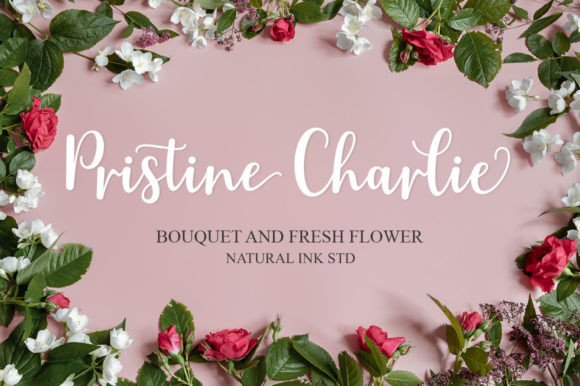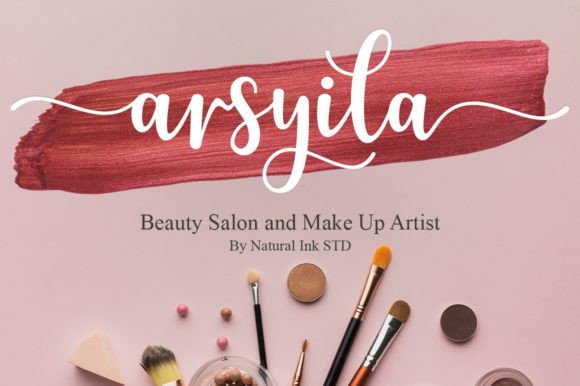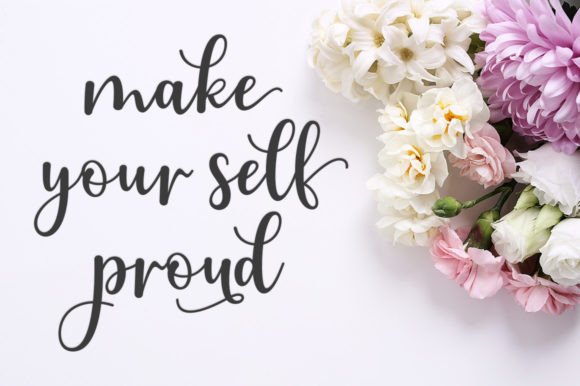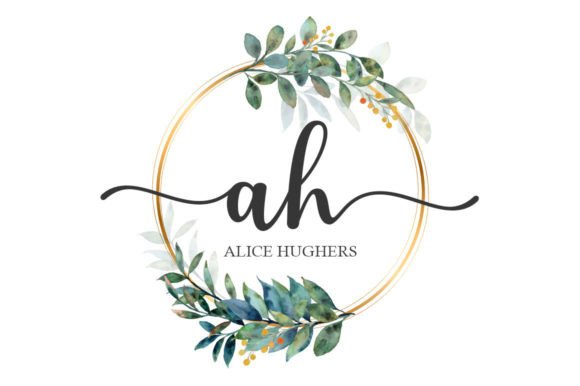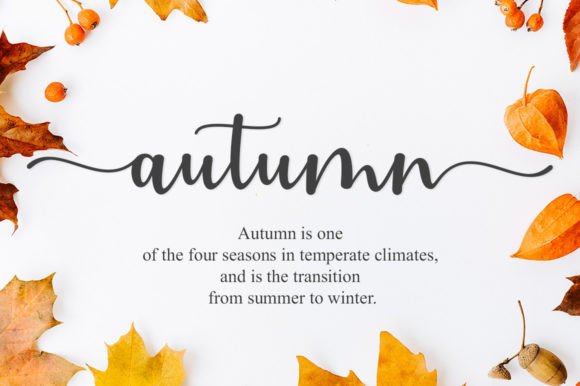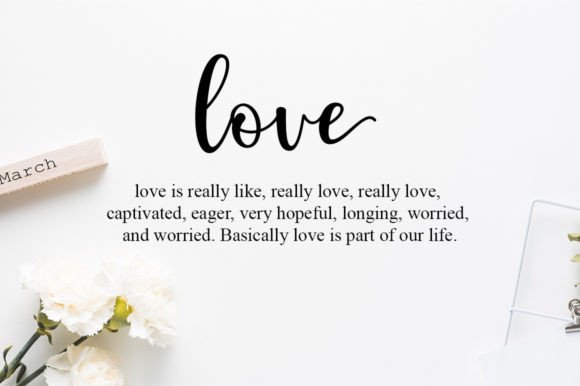
Introduction to Astylife Font
As a designer, there’s nothing quite like that moment of pure inspiration – when a new font suddenly transports your creative project to the next level. You’re brainstorming ideas, scrolling through design resources, and suddenly, you stumble upon the perfect font. It’s like finding a missing puzzle piece that brings everything together. For me, that moment happened when I discovered the Astylife Font – a romantic and sweet calligraphy typeface that adds a touch of luxury to any design.
With its charming characters that dance along the baseline, the Astylife Font is the perfect addition to any design project. Whether you’re working on a wedding invitation, a logo, or a marketing brochure, this high-quality font is sure to elevate your design to new heights. And the best part? It’s available for a free download, making it an accessible design resource for designers of all levels.
- Unique and modern font style, ideal for use in logos, branding, and other creative projects that require a distinctive look.
Honest Review: Astylife Font
I recently stumbled upon the Astylife Font, and I must say it’s a great addition to any designer’s toolkit. This high-quality font is perfect for a variety of creative projects, from digital design to print materials.
- What works well: ✨ The Astylife Font has a clean and modern design, making it suitable for a wide range of applications. The transparent background also allows for easy customization.
- What works well: ✨ The font is also highly legible, even at small font sizes, which is a major plus for designers who need to ensure their text is readable across different mediums.
As for limitations, I found that the Astylife Font is a bit limited in terms of its versatility. It’s mainly suitable for digital projects, and the lack of support for print materials may be a drawback for some designers.
- ⚠️ Limited print support: While the font is great for digital design, it may not be the best choice for print materials due to its digital nature.
Overall, I would highly recommend the Astylife Font to designers looking for a high-quality, free download for their creative projects. Just be aware of its limitations, and you’ll be good to go!
Tips for Getting the Most Out of Astylife Font
To get the most out of Astylife Font, use it with a transparent background to create a clean and modern look. You can also experiment with different font sizes and styles to add visual interest to your design. Additionally, consider using Astylife Font in combination with other high-quality design resources to create a cohesive and professional design.
Astylife Font is a versatile design resource that can be used in a variety of creative projects, including graphic design, digital art, and even web design. Some common use cases include creating logos, social media graphics, and presentations.